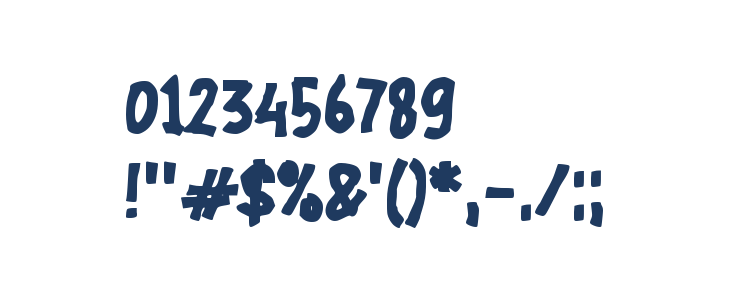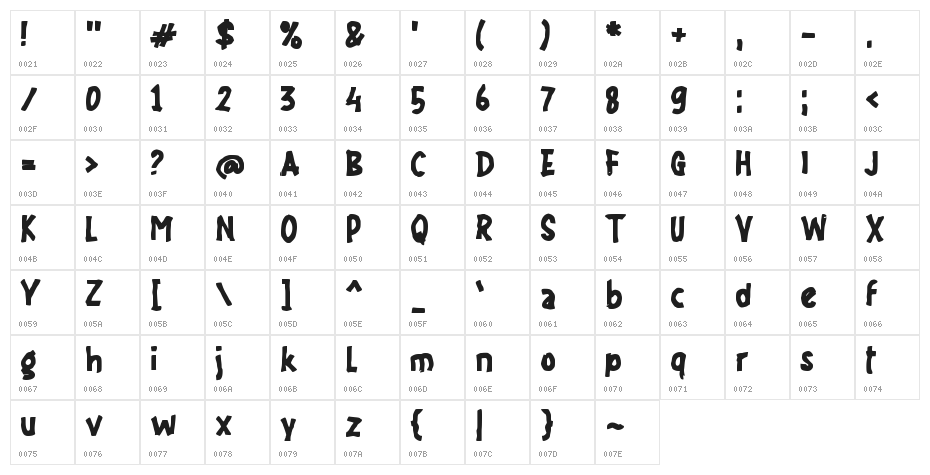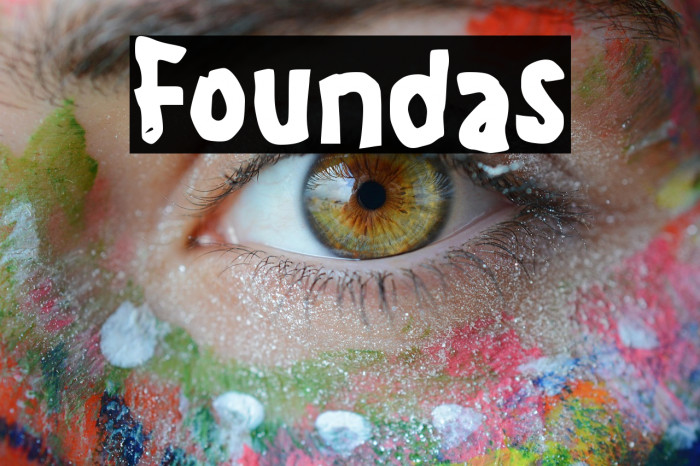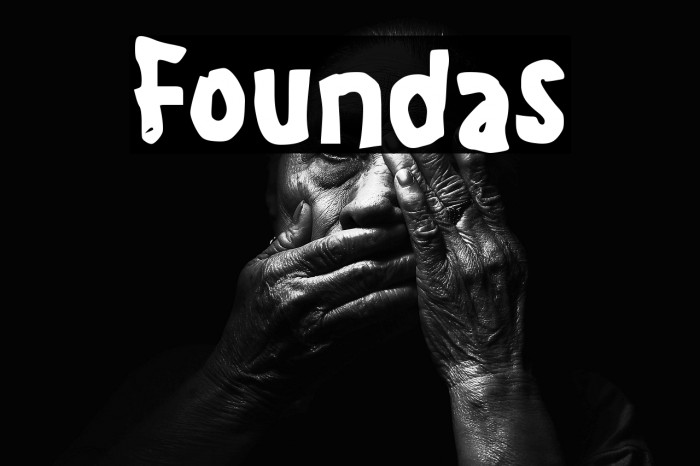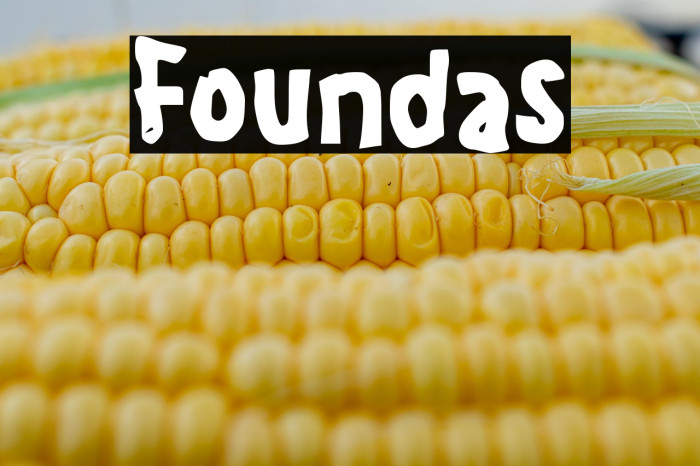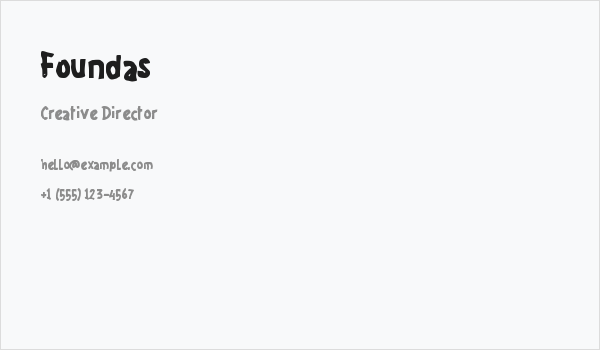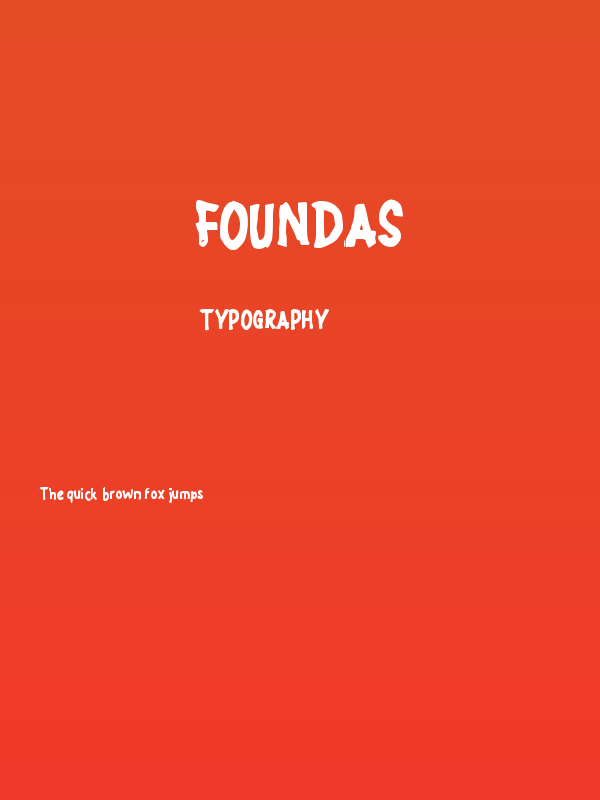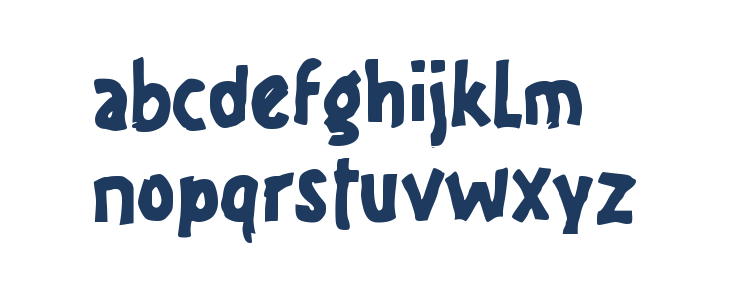
Foundas Font
Foundas Description
This font features a bold and playful design with a hand-drawn aesthetic. The characters are irregular and slightly distorted, giving a whimsical and informal feel. The strokes are thick and uneven, adding to the font's quirky personality. The uppercase and lowercase letters maintain a consistent style, with rounded edges and a slightly tilted appearance. Numbers and special characters follow the same playful theme, making the font suitable for creative and fun projects. The overall look is casual and approachable, perfect for designs that aim to be friendly and engaging.